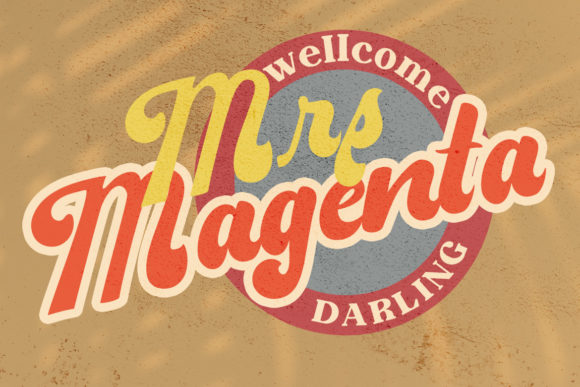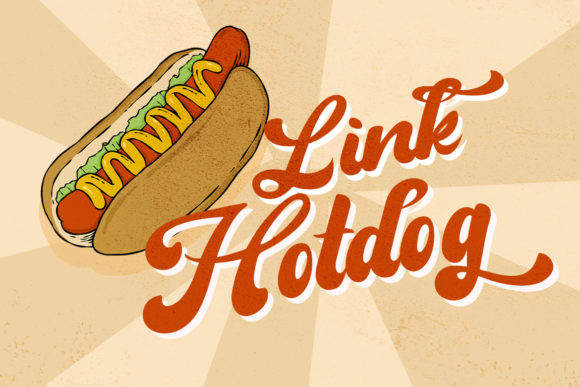
Clasifa Font
db-ku.com - Script & Handwritten -- Clasifa is a retro and bold script font. It is perfect for gorgeous designs, badges, logos, posters, branding, packaging, signage, book cover and so much more!